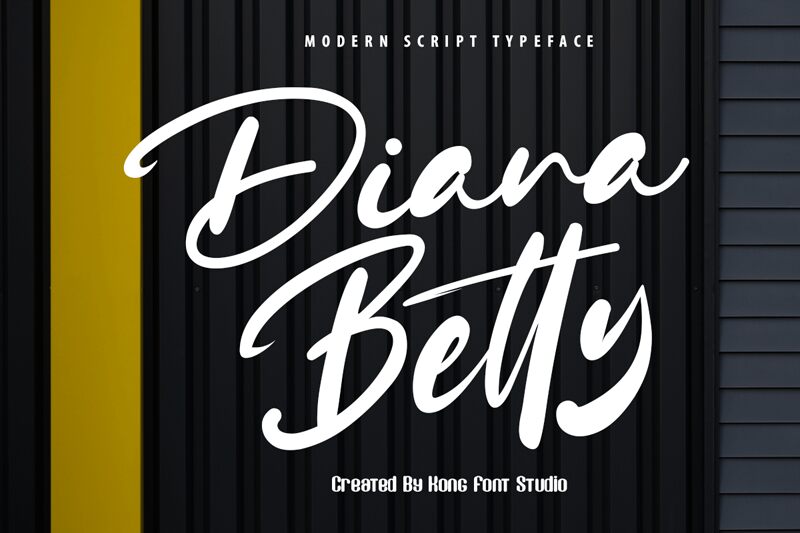
Diana Betty
Diana Betty is a modern script font designed by Kong Font. With an elegant and graceful style, Diana Betty is perfect for creating beautiful wedding invitations, luxury logos, and eye-catching advertisements.